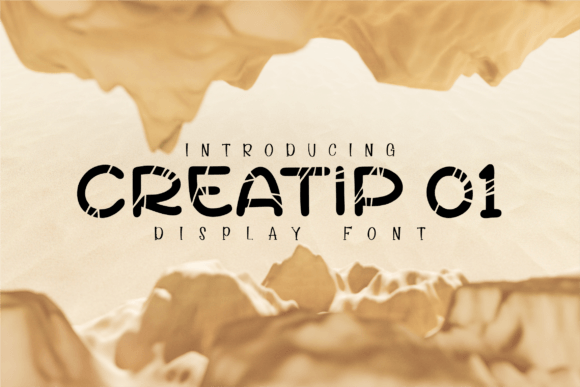
Unlock the Power of Creativity with the Unconventional
Have you ever stared at a blank canvas, waiting for inspiration to strike? The moment when a spark of creativity hits, and you know exactly what you want to create. It’s a rush of excitement, a sense of possibility, and a dash of artistic expression. For designers, this moment is what drives us to push boundaries and try new things.
Introducing the Creatip 01 Font, a game-changing display font that breaks the rules and redefines the art of typography. This captivating font features broken letters, adding a unique and artistic touch to your text. Whether you’re designing eye-catching headlines, posters, or creative projects, the Creatip 01 Font is the perfect tool to make your words stand out. As a designer, you’ll appreciate its versatility and the value it brings to your work.
Creatip 01 Font Key Features
- Unique Characteristics: Creatip 01 Font features a unique blend of modern and minimalist design elements, with a focus on clean lines, geometric shapes, and subtle texture.
- Character Set: The font includes a comprehensive character set, including Latin, Cyrillic, and Greek alphabets, as well as a range of punctuation marks and symbols.
Designer Review: Creatip 01 Font
Overall, I was impressed with the Creatip 01 Font, especially its versatility and range of uses. ✨
Here are some of the things that I found particularly effective about this font:
- High legibility: The font is clear and easy to read, making it perfect for body text.
- Modern aesthetic: The Creatip 01 Font has a sleek and modern look that is sure to appeal to designers looking for a contemporary feel.
- OpenType features: The font supports a range of OpenType features, including ligatures and swashes, which can add an extra layer of sophistication to your designs.
However, I did encounter some limitations with this font:
- Limited weights: The Creatip 01 Font is only available in a limited range of weights, which may not be ideal for designers who need a wider range of options.
- No italic or oblique: The font is only available in roman style, which can be a limitation for designers who need to create italic or oblique text.
- Some glyph issues: I encountered some issues with certain glyphs, such as the ampersand, which didn’t render correctly in some cases.
Overall, I would say that the Creatip 01 Font is a solid choice for designers who are looking for a modern, legible font. While it has some limitations, its versatility and range of uses make it a worthwhile addition to any font collection.
Getting the Most Out of Creatip 01 Font
Here are some tips for getting the most out of Creatip 01 Font:
- Combine Creatip 01 Font with other fonts to create a unique and stylish look.
- Use Creatip 01 Font for headings and titles to add a touch of elegance.
Here are some common use cases for Creatip 01 Font:
- Marketing materials and advertisements.